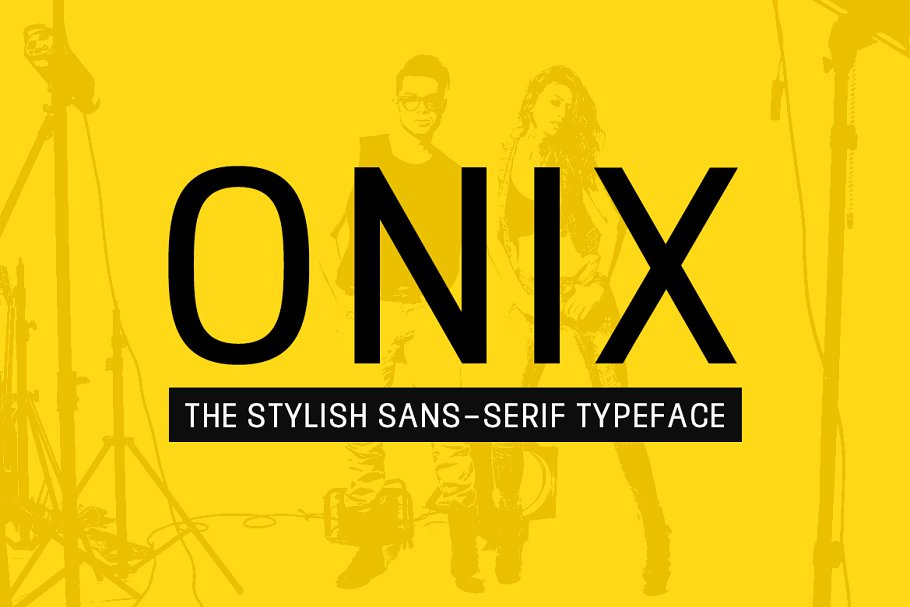
Onix Font
Onix Font is perfect for luxury jewelry brands, sophisticated gemstone collections, high-end mineral trading companies, exclusive crystal healing centers, premium stone masonry firms, and upscale geological museums. Its crystalline character makes it ideal for luxury watch manufacturers, precious stone dealers, elegant interior design studios, sophisticated mineral collections, exclusive stone cutting services, and any project requiring precious elegance with crystalline precision and geological sophistication appeal.
This font is exciting because it captures the timeless beauty and inherent strength of precious stones while delivering exceptional functionality for luxury brands that value both natural elegance and enduring quality. The meticulously crafted letterforms reflect the crystalline structure and inherent beauty found in natural gemstones, creating typography that feels both luxurious and grounded in the earth's most precious formations, appealing to audiences who appreciate authentic natural beauty.
The Onix Font family typically includes Light, Regular, Medium, and Bold weights with crystalline alternates, gemstone-inspired ligatures, and precious decorative elements that enhance its luxurious personality. This comprehensive collection enables luxury professionals to create prestigious brand systems that maintain geological authenticity while providing flexibility for various high-end applications requiring both natural beauty and sophisticated market positioning.
Whether you're developing identity systems for luxury jewelry houses, creating materials for exclusive gemstone exhibitions, or designing promotional content for precious stone services, Onix Font Free Download delivers the crystalline elegance and geological sophistication that resonates with discerning audiences seeking authentic luxury and natural beauty. Its precious presence ensures distinguished brand recognition across digital platforms and print materials, making it perfect for websites, mobile applications, and luxury campaigns that celebrate natural elegance, geological wonder, and the enduring appeal of earth's most precious creations with contemporary sophistication and timeless mineral beauty.